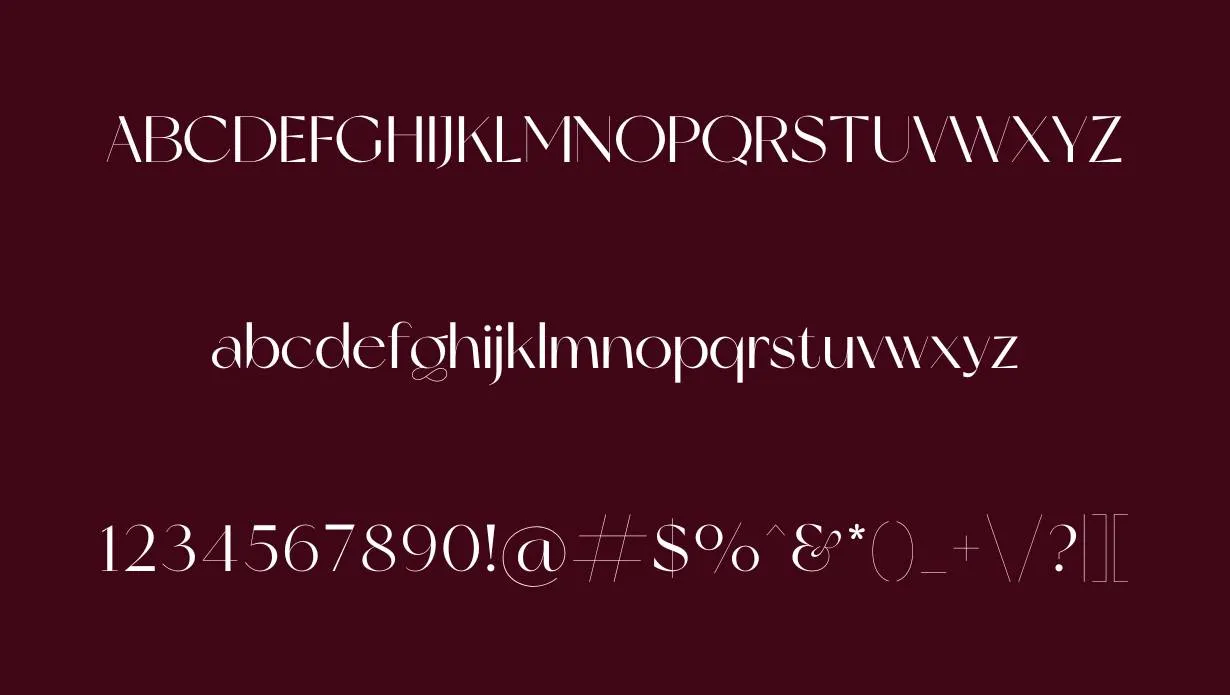
Miracle Font is a typeface that casts a enchanting spell with its whimsical curls and sophisticated twists. It appears as though it was plucked from the pages of a fairy tale, adding charm and allure to the text. This font is ideal for projects looking to captivate with a hint of fantasy and marvel.
It’s like a sprinkle of fairy dust on every letter, transforming the ordinary into something enchanting and extraordinary. Miracle Font is a testament to the power of imagination and creativity, making every word a part of a captivating tale. To achieve an exclusive and eye-catching design, it is essential to pair this font with the geo sans font.